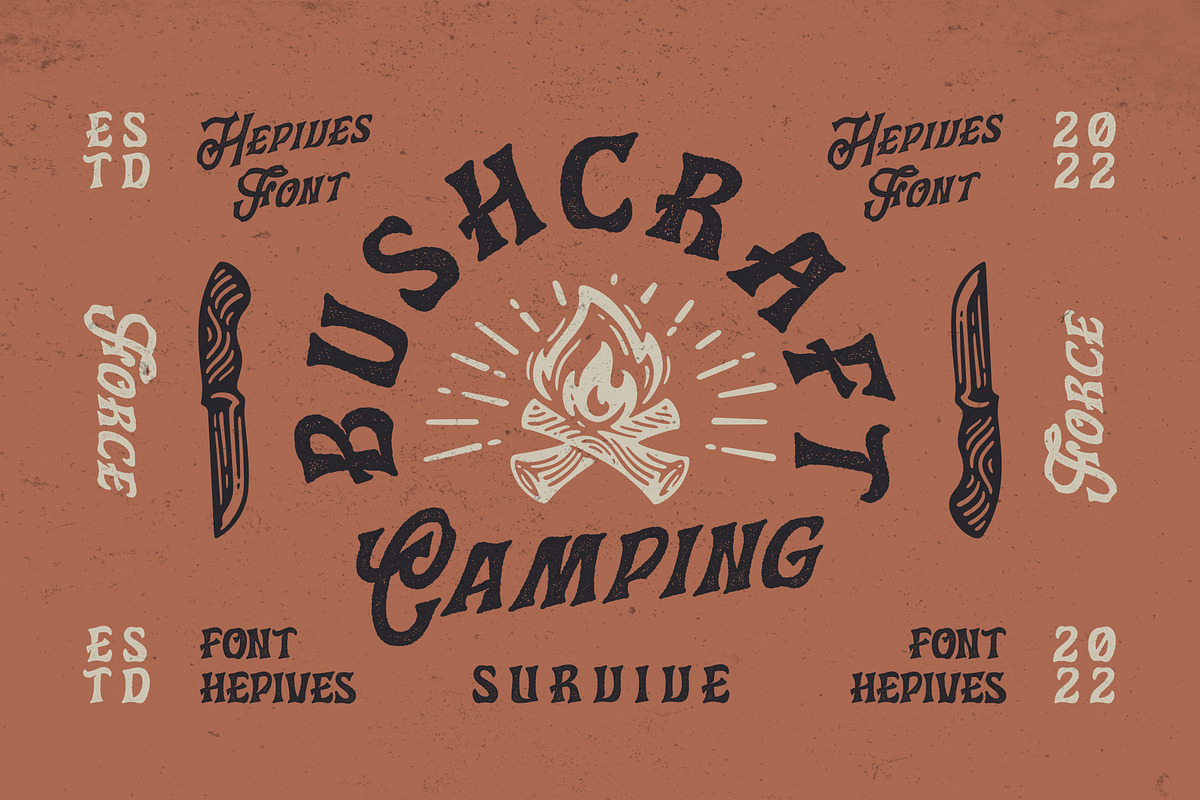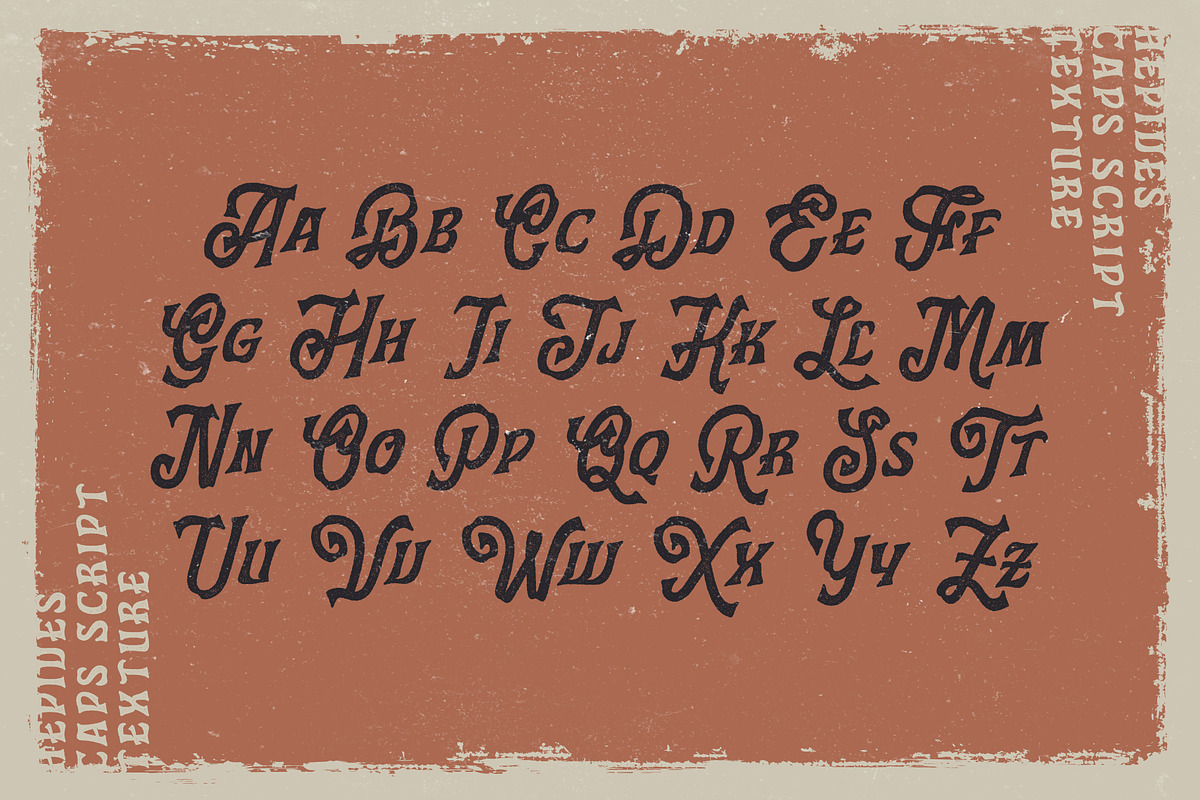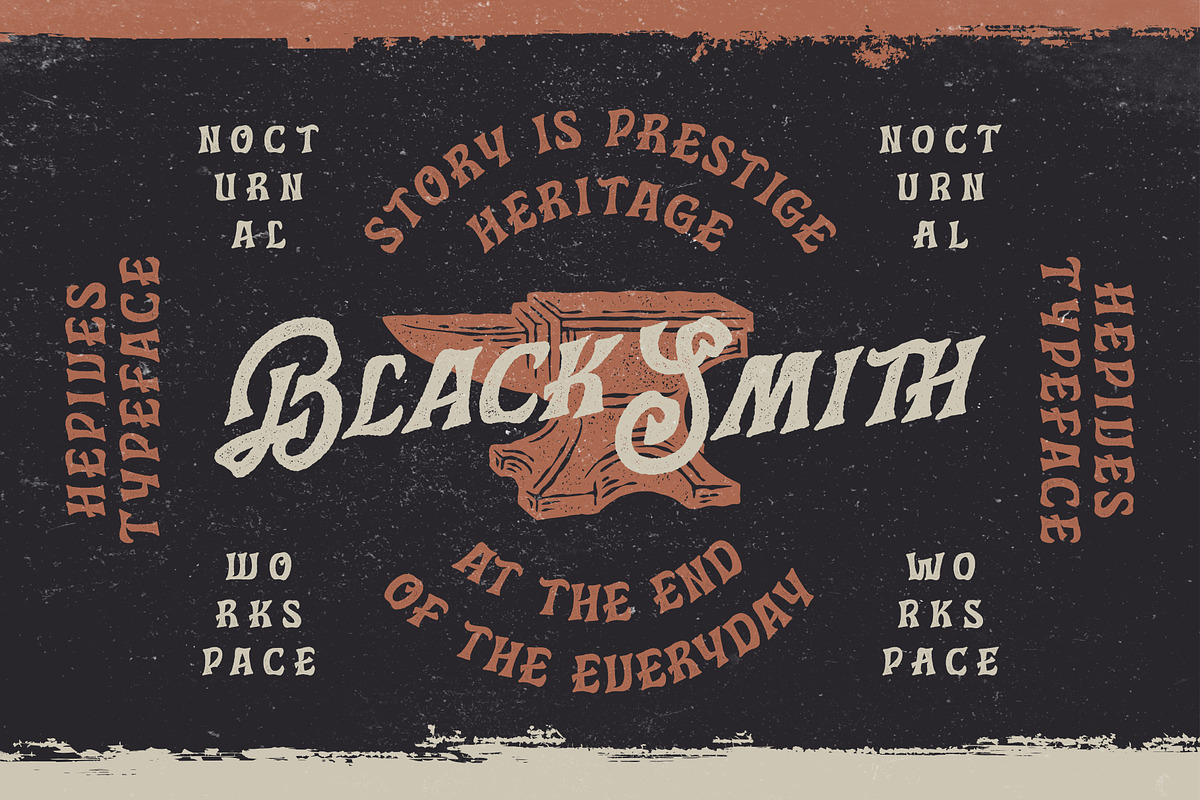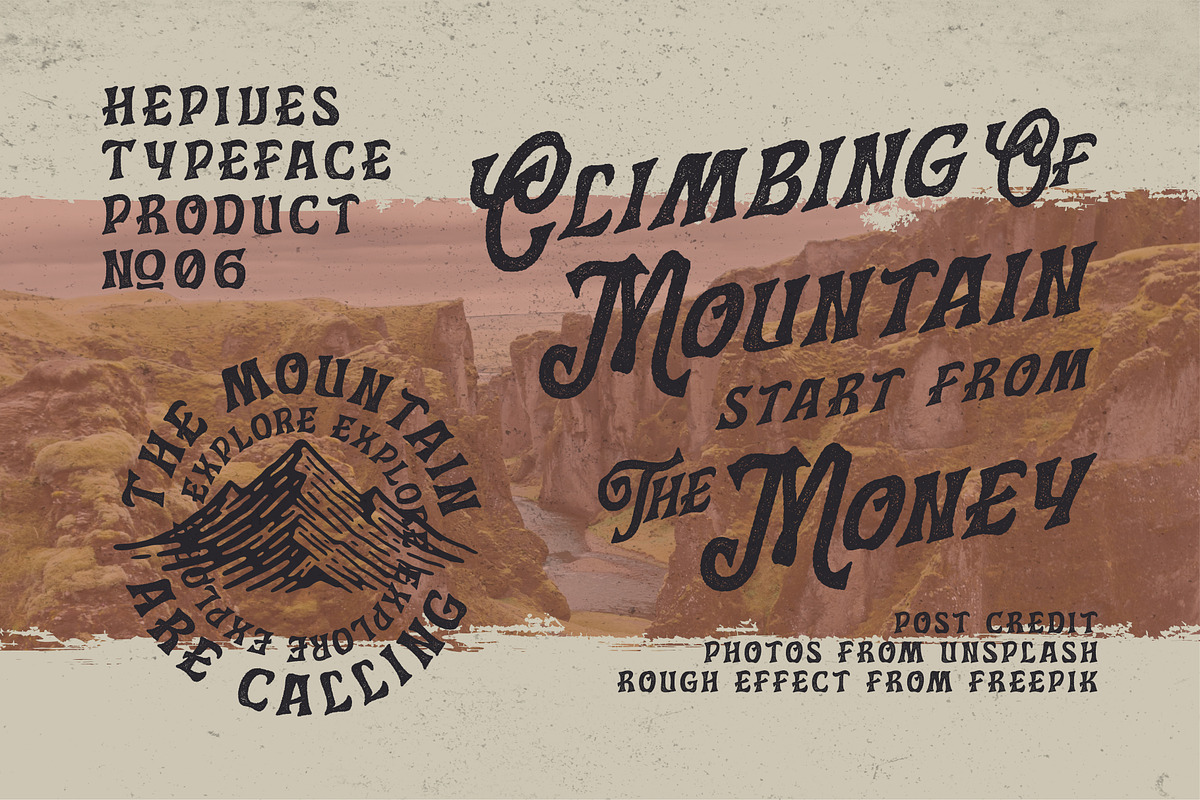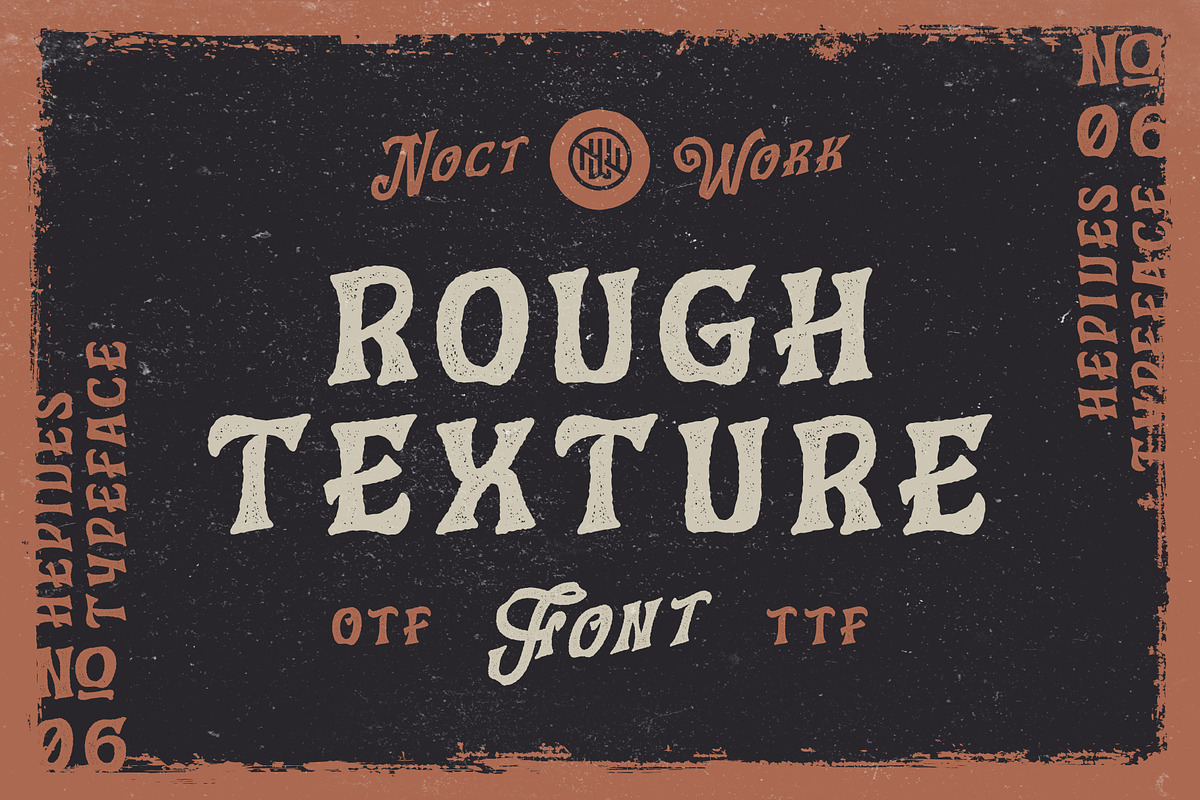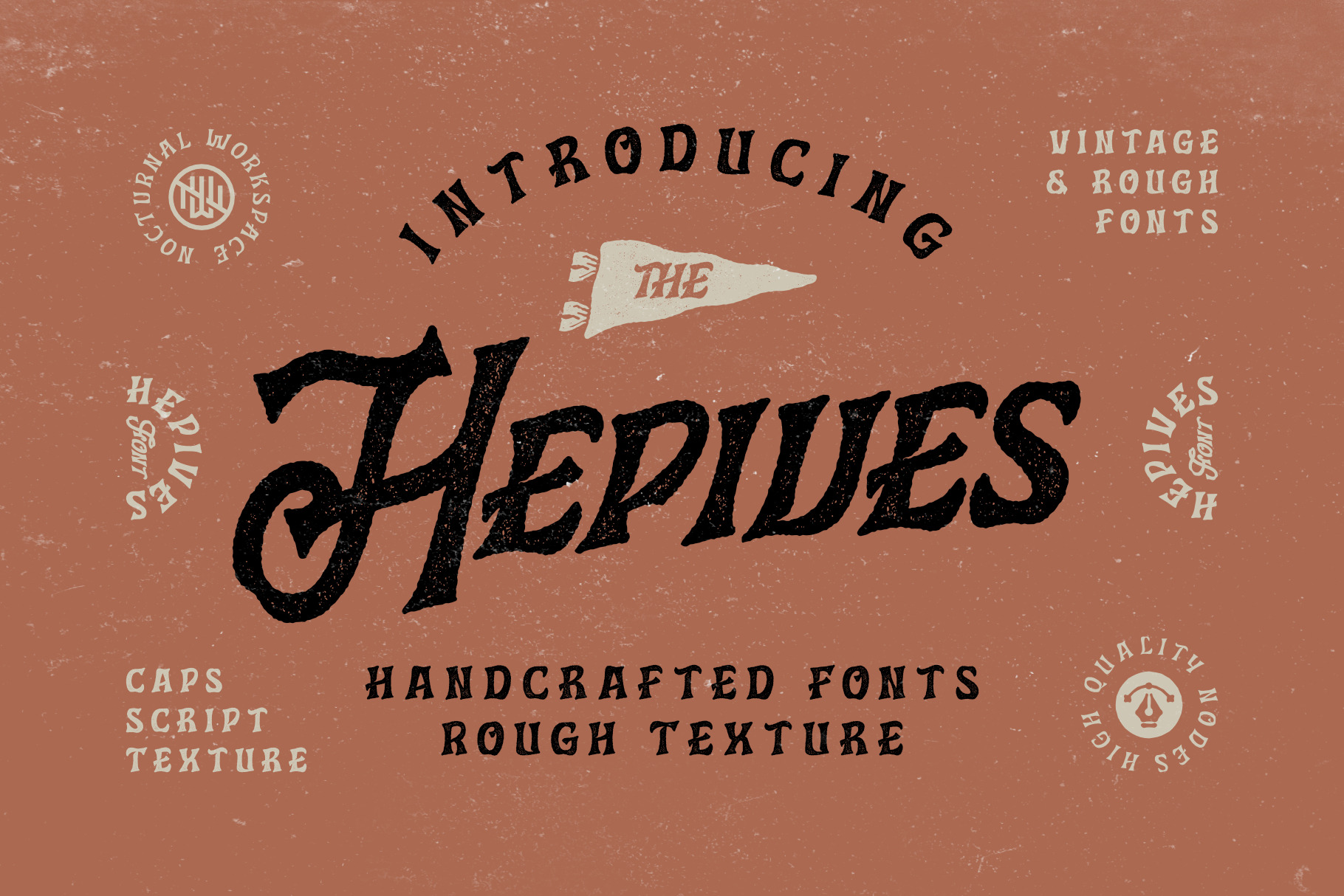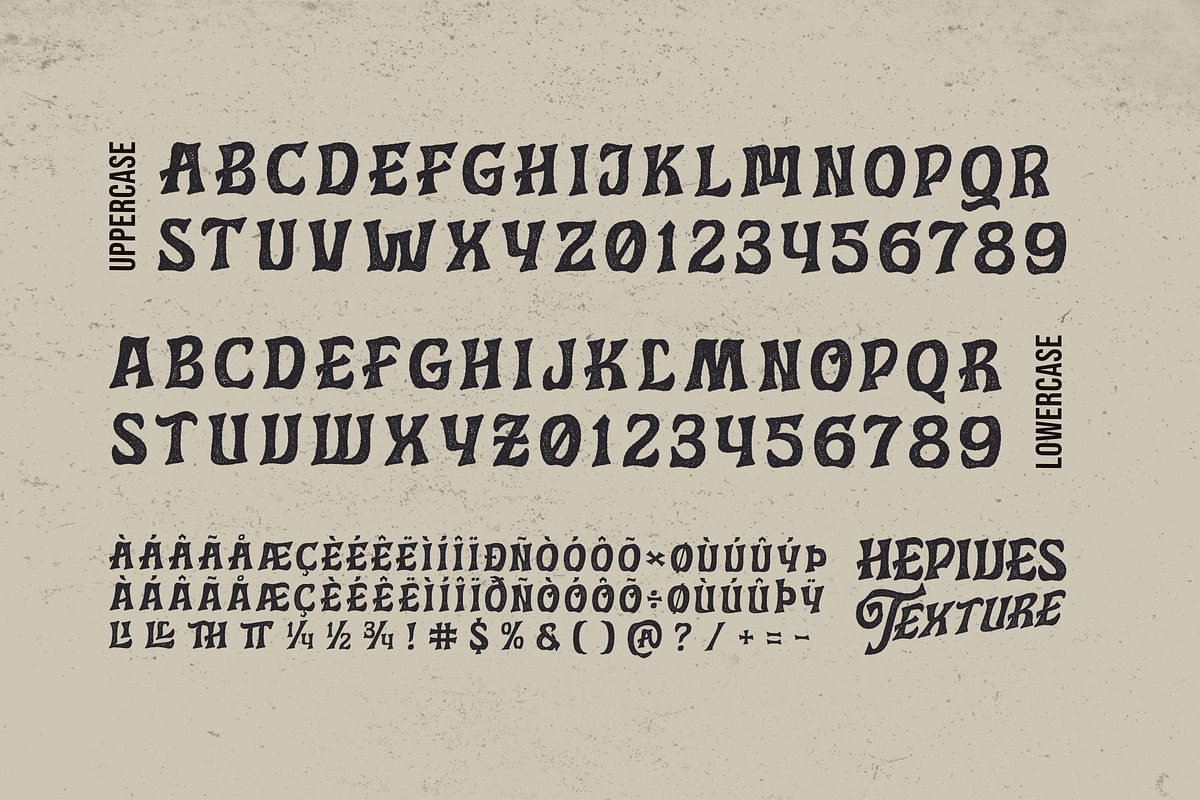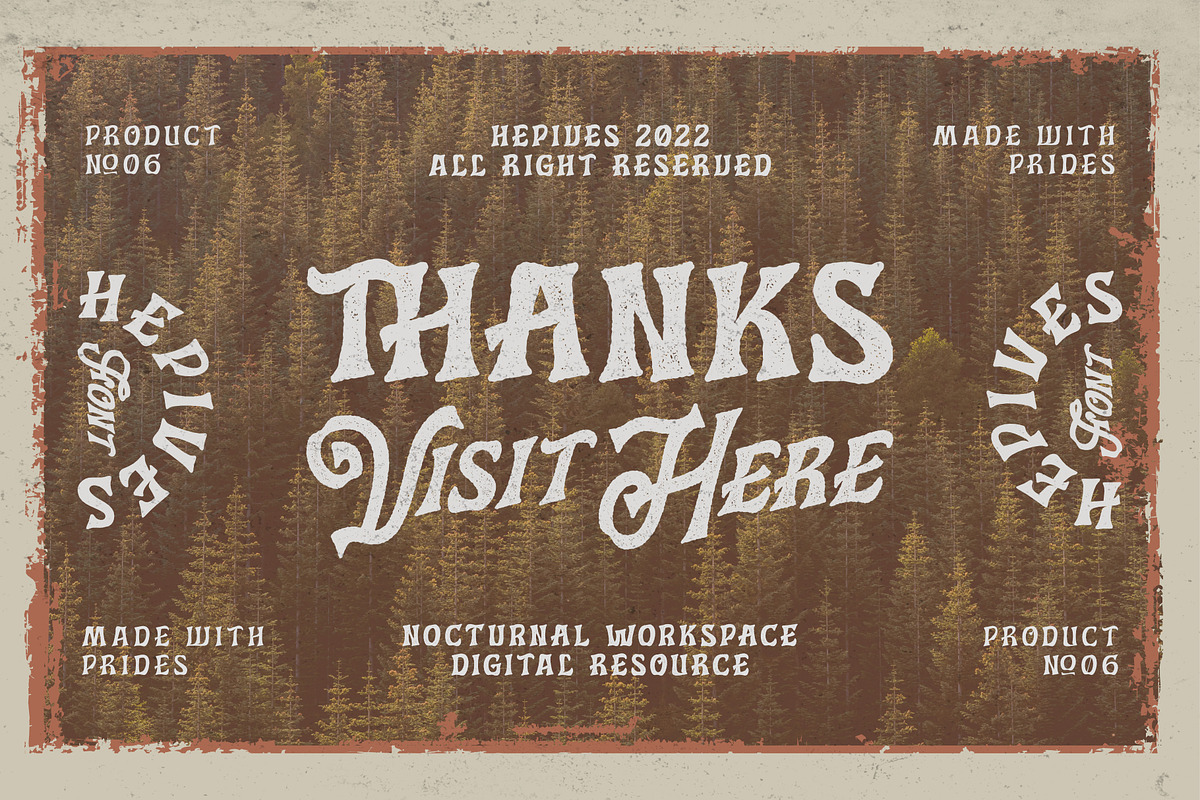
Hepives Texture Font
The first version of the Hepives font can be seen here (https://creativemarket.com/nocturnal_workspace/7255846-Hepives-Fonts). Inspired by old vintage denim labels, old clothes commercials, labels on 90s tapes.. Ideal for use in logos, flyers, invitations, labels, clothes and more.
- Hepives Regular Texture Font
- Hepives Caps-Script Texture Font
- Standard Ligature
- Stylistic Alternate
- Fraction, Numerator, Denominator
- Includes a range of multilingual characters.